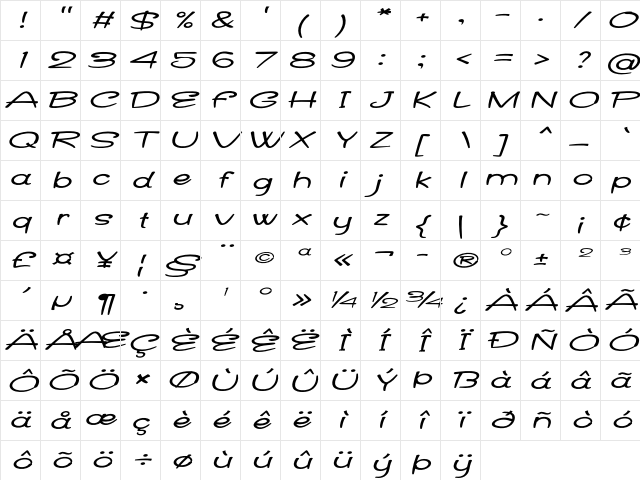
Haribu Extra-expanded Italic
Style: Extra-expanded Italic
Complete Haribu Extra-expanded Italic glyph index. Displaying only characters natively supported by Haribu Extra-expanded Italic font.
Design Context for Haribu
Haribu is a composed and adaptable typeface that performs quietly and consistently across a wide range of design contexts. The slanted form adds forward momentum and visual energy.
Pro Tip: Use Haribu for emphasis, pull quotes, and subheadings where its slanted energy can add rhythm to the layout.